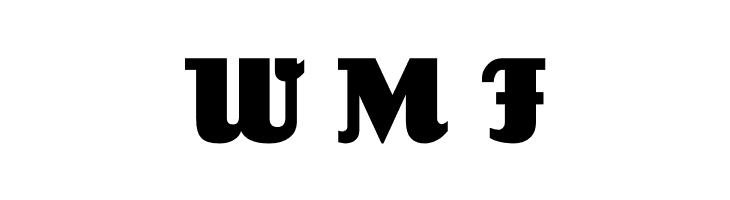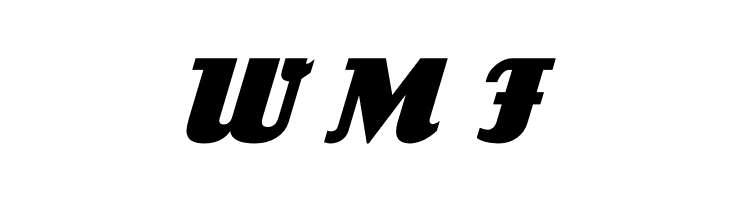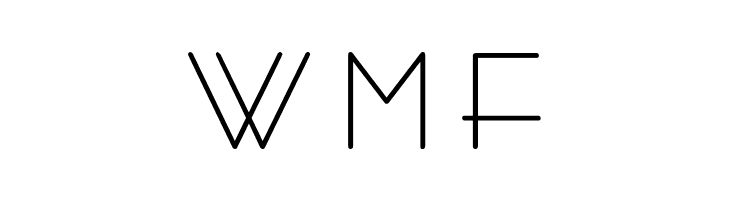
A bold, high-contrast serif font with a modern and impactful style.
A bold, italicized font with high contrast and dynamic slant.
A classic serif typeface with an elegant italic slant and refined details.
A bold, hand-drawn font with a playful and artistic style.
A bold, modern sans-serif font with clean lines and strong readability.
A modern, clean sans-serif font with excellent readability and balanced proportions.
A clean, modern sans-serif font with a semi-bold weight and geometric structure.
A clean, modern sans-serif font with uniform geometric letterforms.
A modern, geometric font with rounded edges and consistent stroke widths.